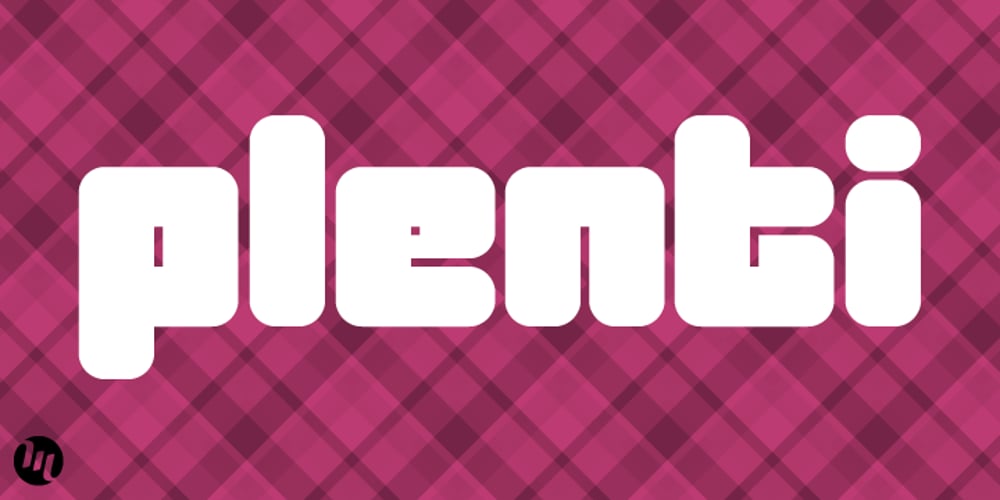
Plenti
Plenti font
Plenti Font Family was designed by Matthew Aaron Desmond and published by MADType. Plenti contains 4 styles and family package options. Plenti is the fat font to add to your visual communication toolbox. Friendly, square, and quirky all at the same time. It is itching to get used on posters and websites.